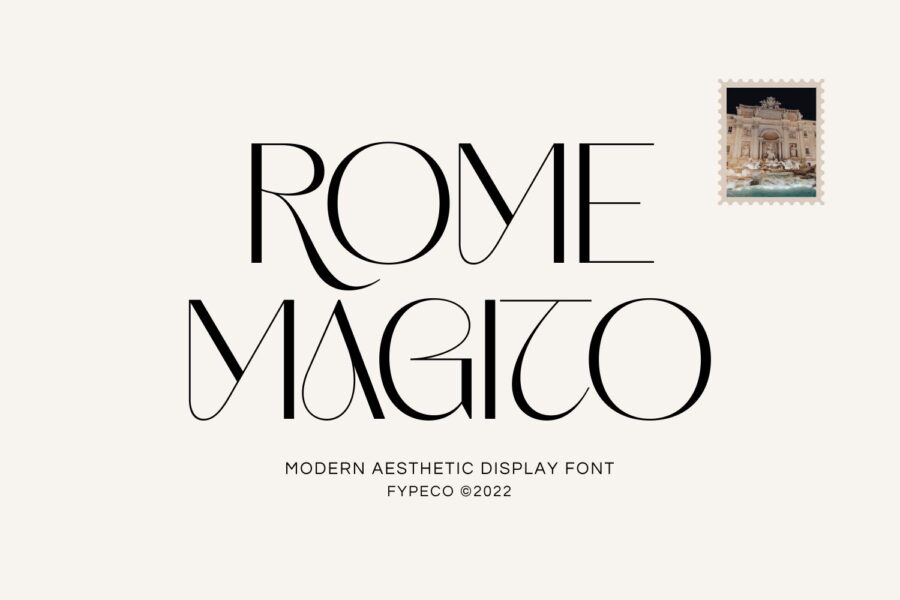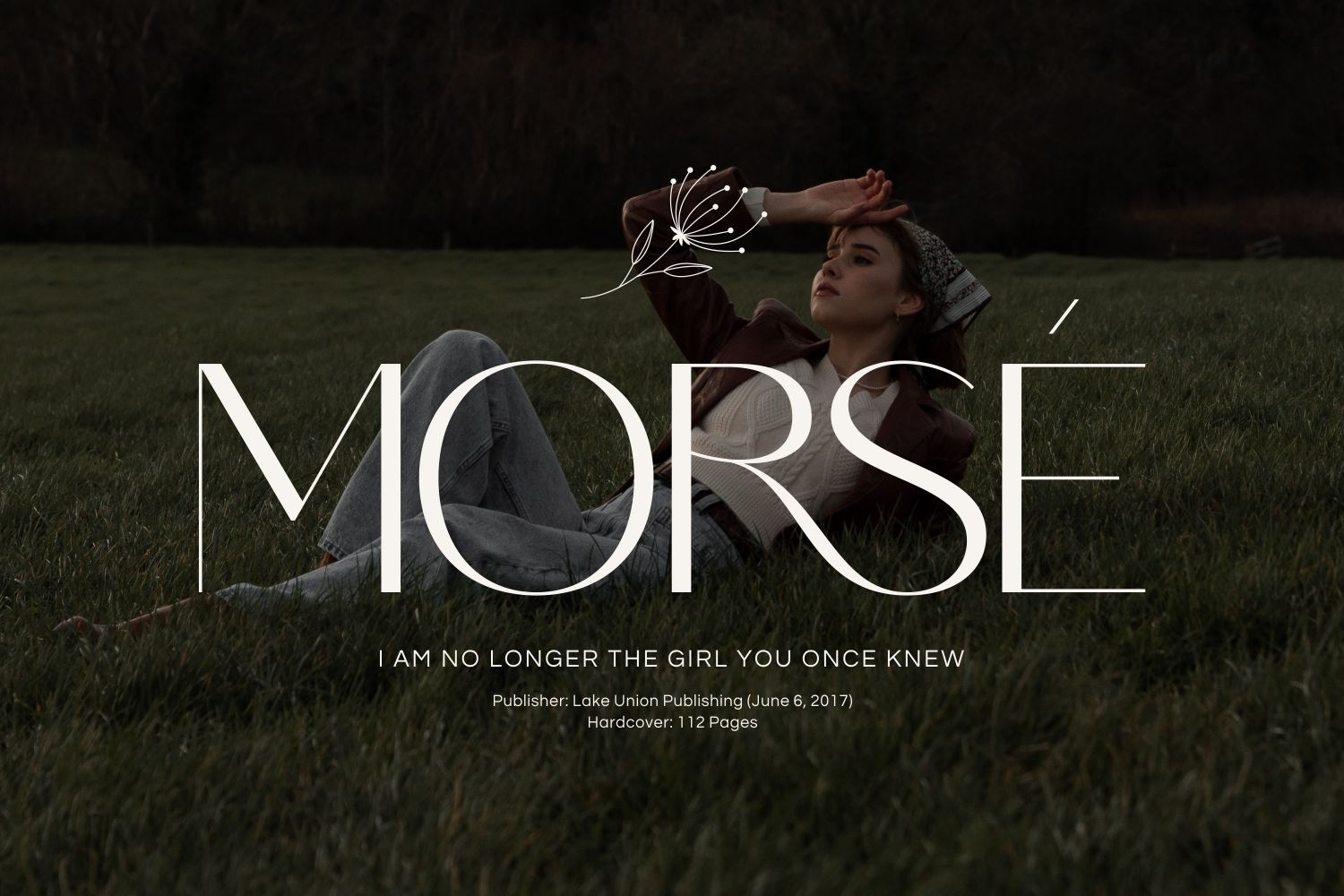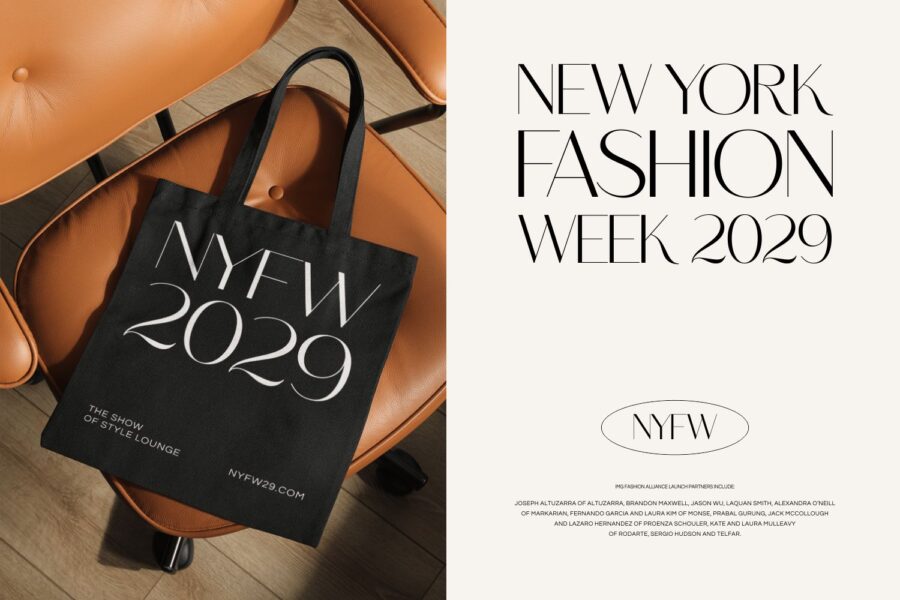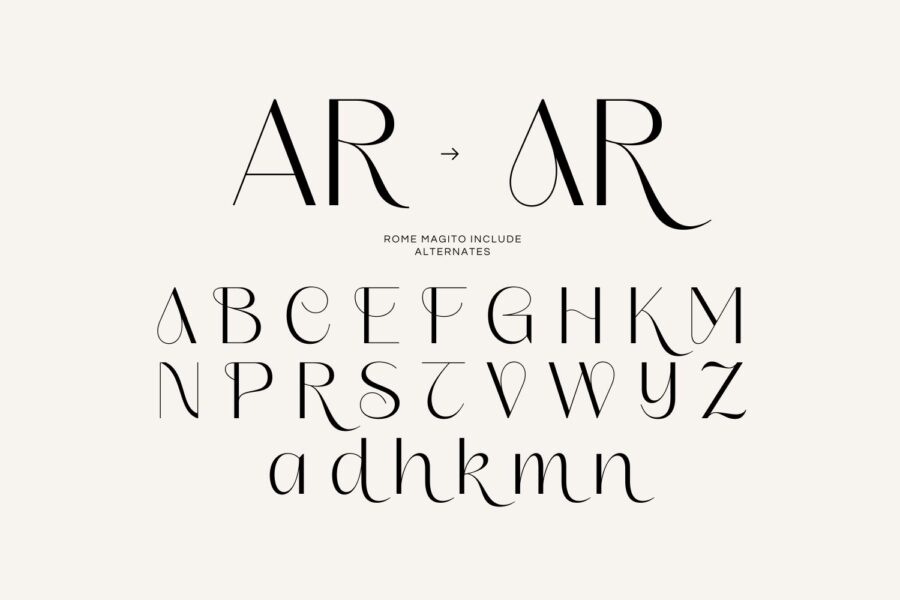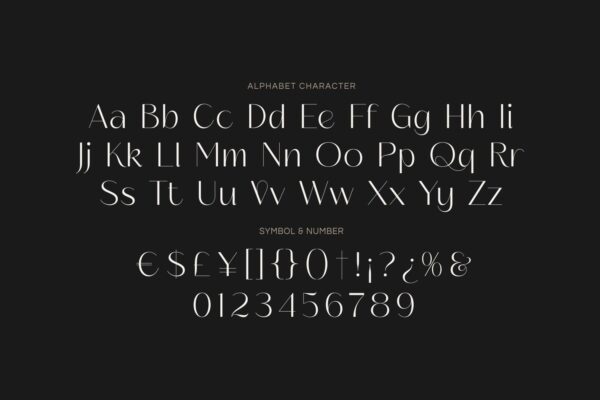
Rome Magito
Rome Magito is a modern aesthetic display font with a unique blend of elegance and minimalism. Its sleek strokes and refined curves create a luxurious yet contemporary look, perfect for projects that require both style and sophistication. The contrast between thin and bold shapes gives every character a sense of exclusivity, making your design stand out effortlessly.
Ideal for fashion branding, editorial layouts, packaging, or event posters, Rome Magito adds a refined personality to any creative work. With stylish alternates and versatile ligatures, this font adapts seamlessly to high-end branding, invitations, and visual identities that seek a timeless yet trendy aesthetic.